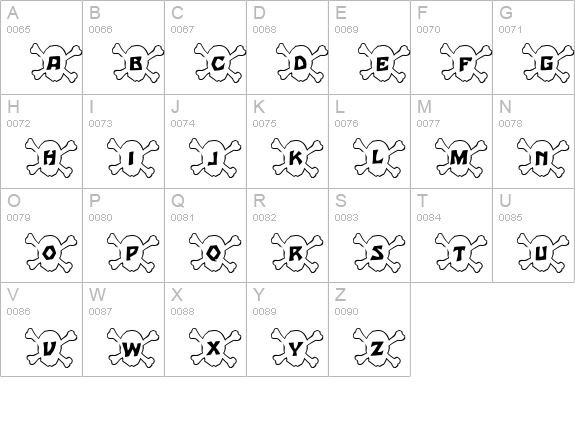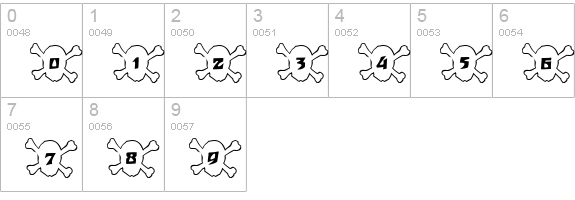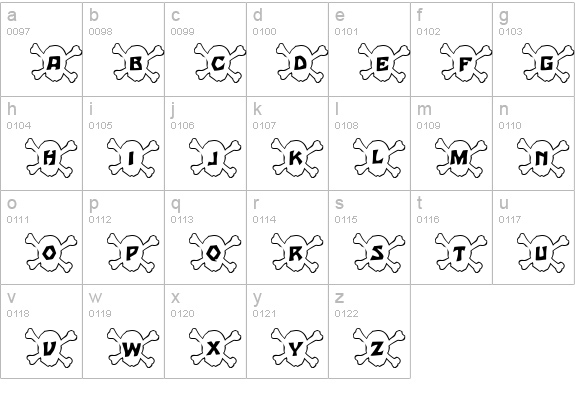
101! Skull &BoneZ Font Details
Introducing the captivating and edgy 101! Skull &BoneZ font, a bold and striking typeface that exudes a sense of mystery and rebellion. With its intricate skull and bone designs intertwined with elegant letterforms, this font is perfect for adding a touch of darkness and intrigue to your design projects. And the best part? 101! Skull &BoneZ font is available for free download at FontsMarket.com, making it easily accessible for all designers looking to make a statement with their typography. Whether you're working on a poster, logo, or branding project, this font will surely make a bold impression and set your designs apart from the rest. Don't miss out on the opportunity to add this unique and eye-catching font to your collection. Download 101! Skull &BoneZ font today and unleash your creativity with its striking and unforgettable design elements.